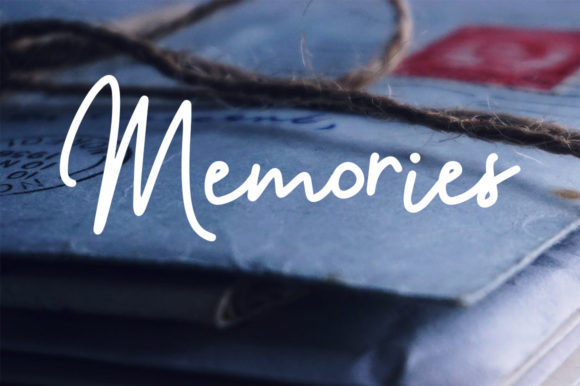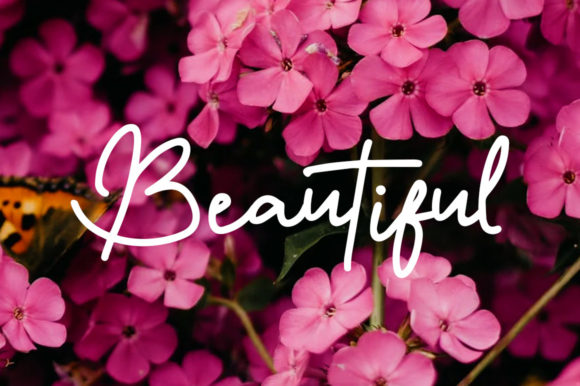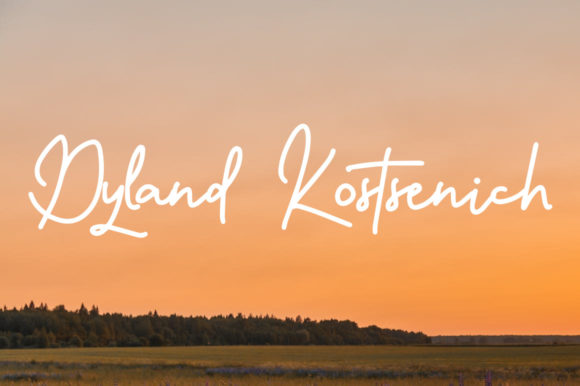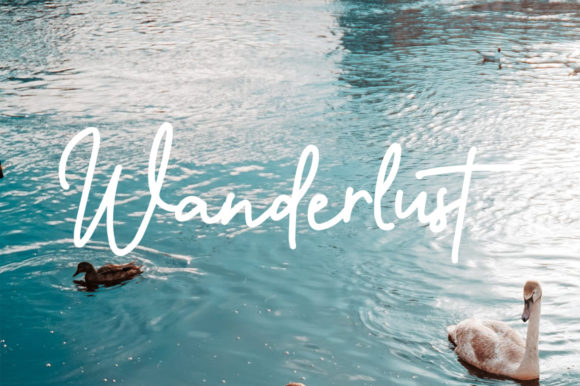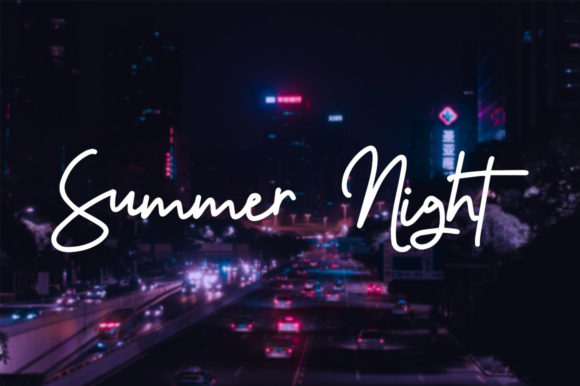
Introducing Hai Julie Font: Elevate Your Designs with Elegance and Sophistication
In the world of typography, a beautiful font can make all the difference in creating stunning designs that capture the essence of your brand or project. If you’re a designer, crafter, or simply someone who appreciates the art of beautiful writing, you’re in for a treat. Say hello to Hai Julie Font, a gorgeous and refined script font that’s about to take your designs to the next level.
A Classy, Elegant, and Modern Look
Hai Julie Font boasts a classy, elegant, and modern look that’s perfect for a wide range of design applications. Its sophisticated and refined aesthetic makes it an ideal choice for logos, branding, invitations, stationery, wedding designs, social media posts, and much more. Whether you’re looking to create a luxurious brand identity or a beautiful wedding invitation, Hai Julie Font is the perfect choice.
What Makes Hai Julie Font Special?
So, what sets Hai Julie Font apart from other script fonts out there? Here are just a few reasons why this font is a cut above the rest:
• Unique and Distinctive: Hai Julie Font has a unique and distinctive look that’s sure to make your designs stand out from the crowd.
• Elegant and Refined: The font’s elegant and refined aesthetic makes it perfect for high-end brands, luxury products, and sophisticated designs.
• Modern and Fresh: Despite its classic look, Hai Julie Font has a modern and fresh feel that’s perfect for contemporary designs.
• Versatile: This font can be used for a wide range of design applications, from logos and branding to invitations and social media posts.
How to Use Hai Julie Font in Your Designs
Now that you’re excited about Hai Julie Font, let’s talk about how to use it in your designs. Here are a few ideas to get you started:
• Logos and Branding: Use Hai Julie Font to create a luxurious brand identity that exudes elegance and sophistication.
• Invitations and Stationery: Create beautiful invitations, wedding cards, and stationery that showcase your refined taste.
• Wedding Designs: Use Hai Julie Font to create stunning wedding designs, including wedding invitations, programs, and decorations.
• Social Media Posts: Add a touch of elegance to your social media posts with Hai Julie Font.
Tips and Tricks for Working with Hai Julie Font
Here are a few tips and tricks to help you get the most out of Hai Julie Font:
• Pair it with Other Fonts: Experiment with pairing Hai Julie Font with other fonts to create a unique and visually appealing design.
• Use it in Combination with Images: Use Hai Julie Font in combination with beautiful images to create stunning designs that tell a story.
• Experiment with Colors: Don’t be afraid to experiment with different colors and textures to add depth and interest to your designs.
In conclusion, Hai Julie Font is a beautiful and refined script font that’s perfect for designers, crafters, and anyone who appreciates the art of beautiful writing. With its classy, elegant, and modern look, this font is sure to elevate your designs and take them to the next level. Whether you’re looking to create a luxurious brand identity, a beautiful wedding invitation, or a stunning social media post, Hai Julie Font is the perfect choice. So why wait? Give Hai Julie Font a try today and see the difference it can make in your designs!